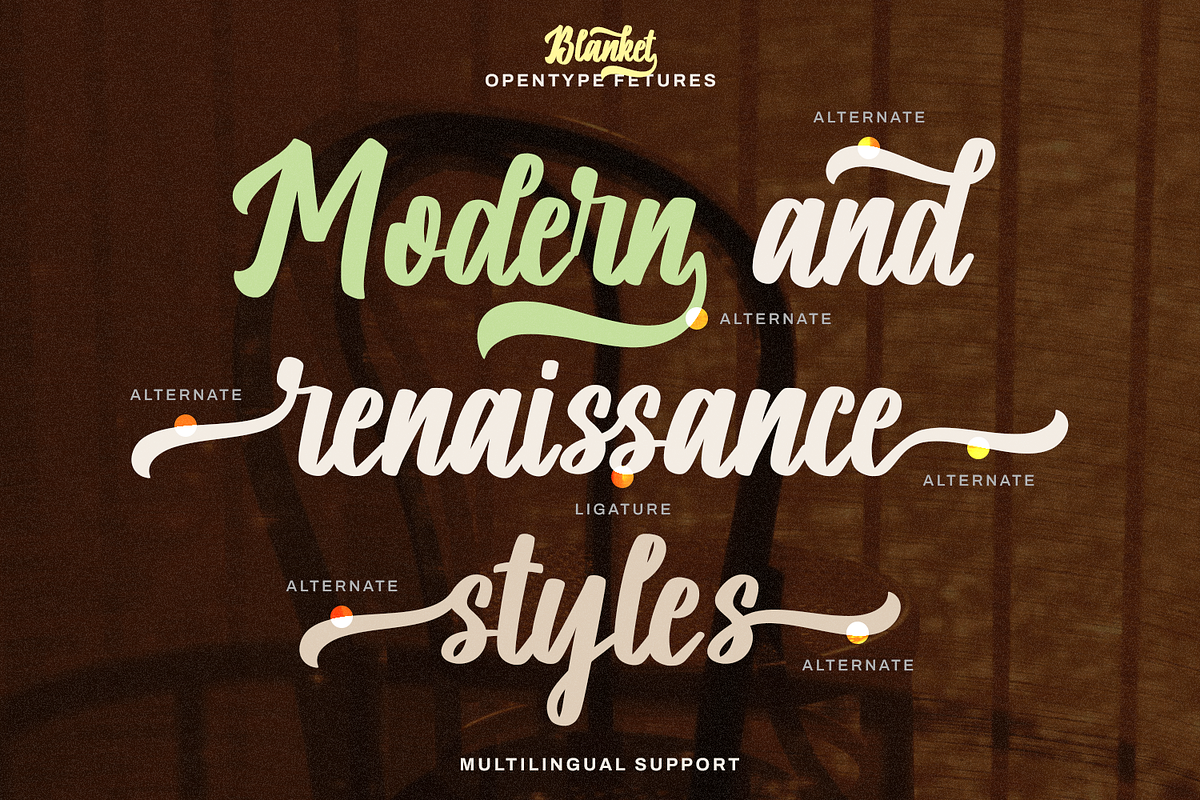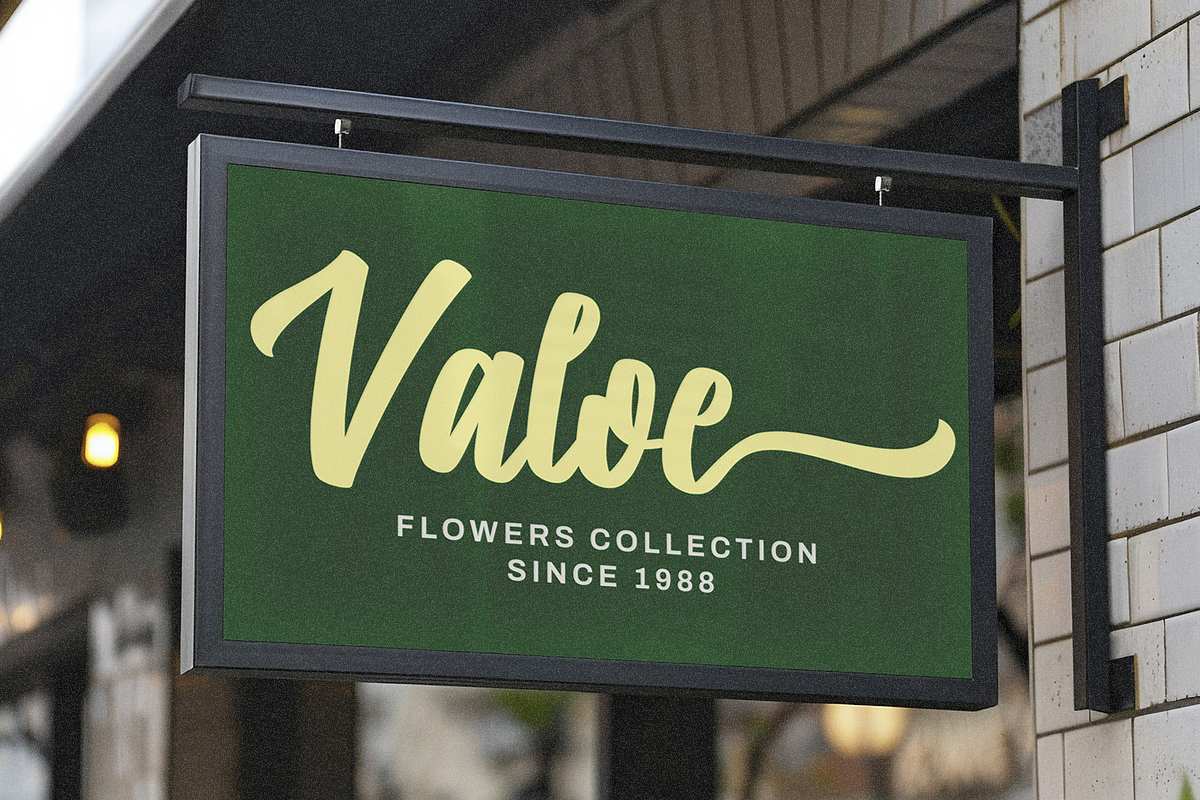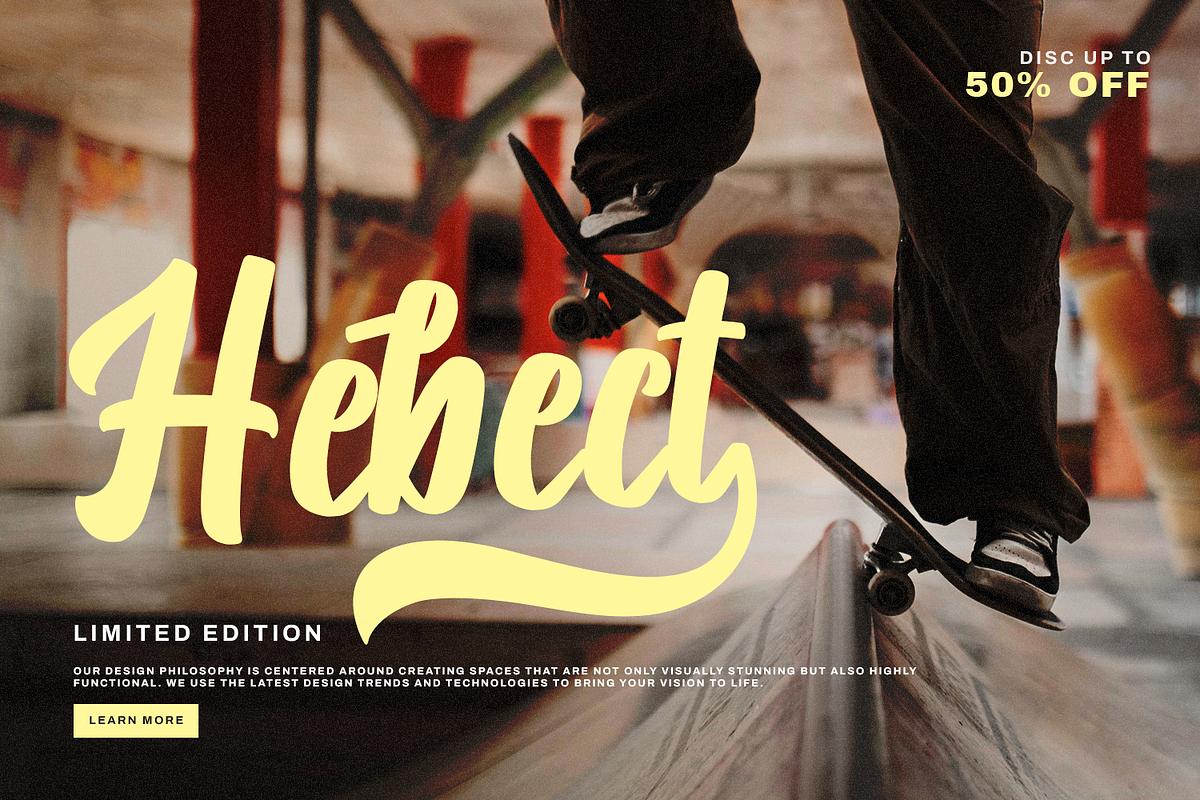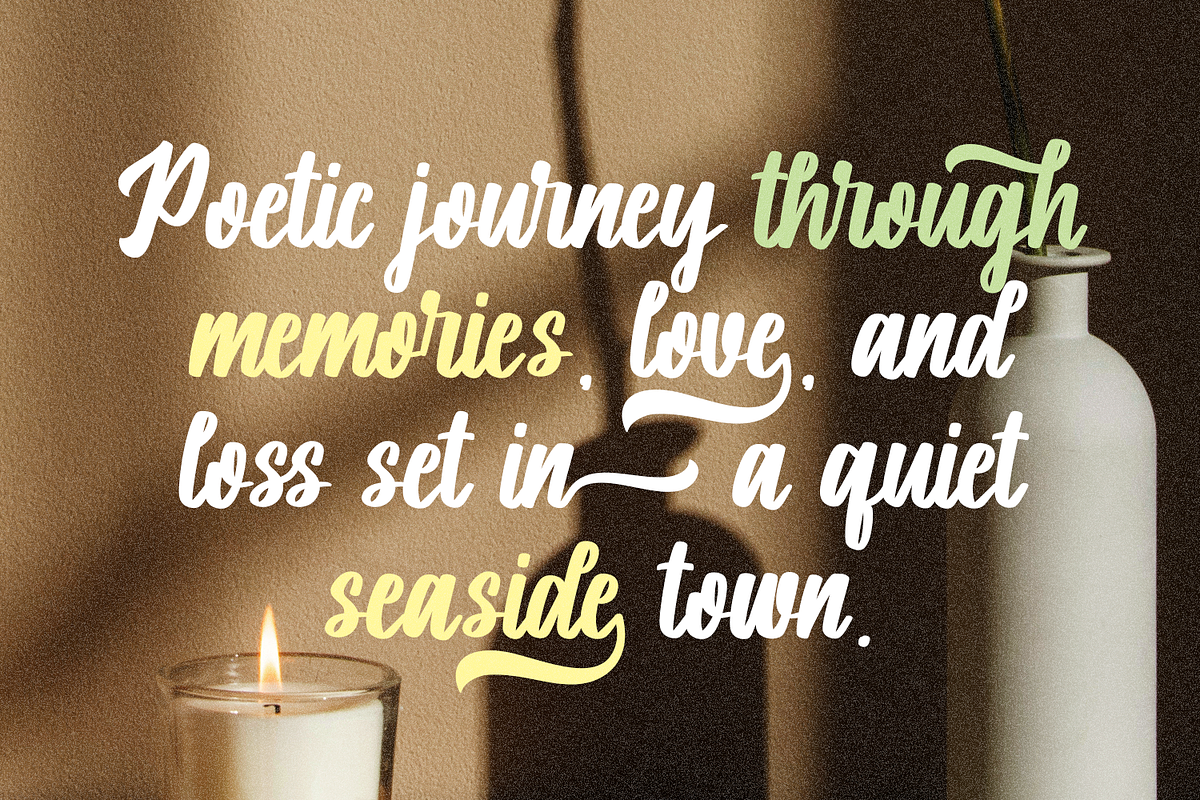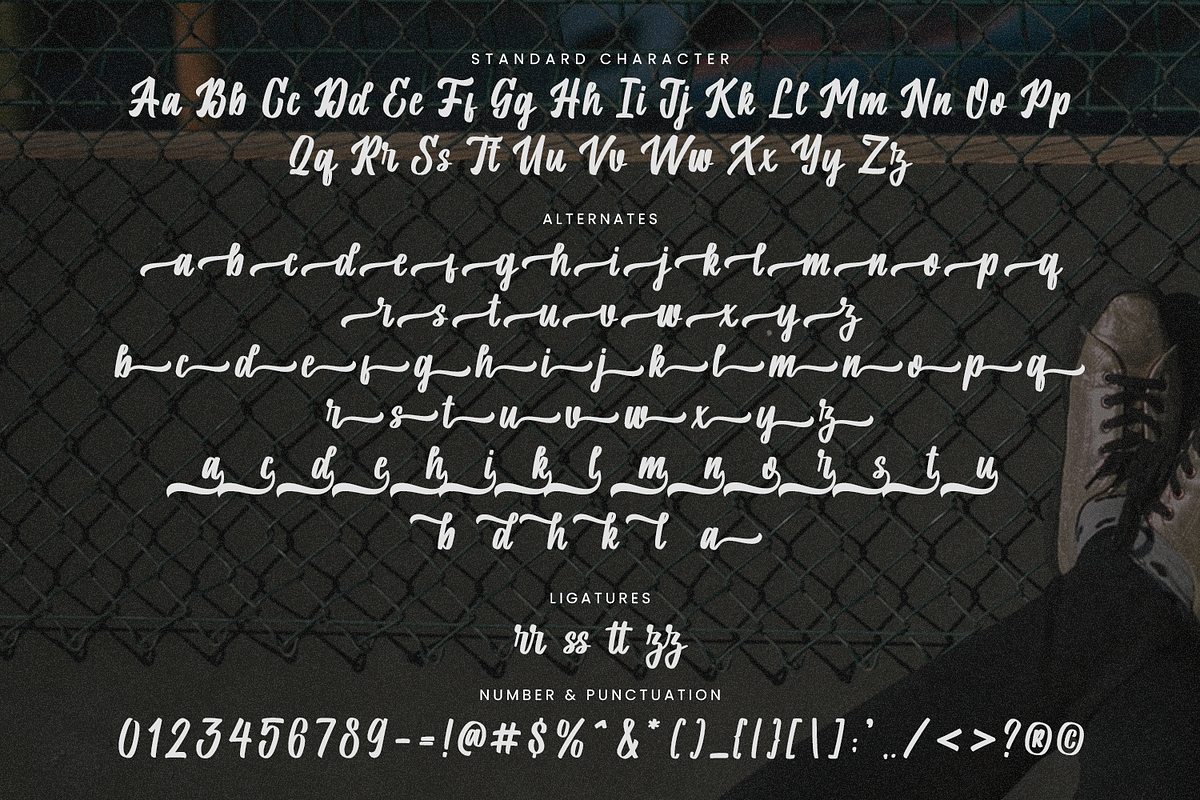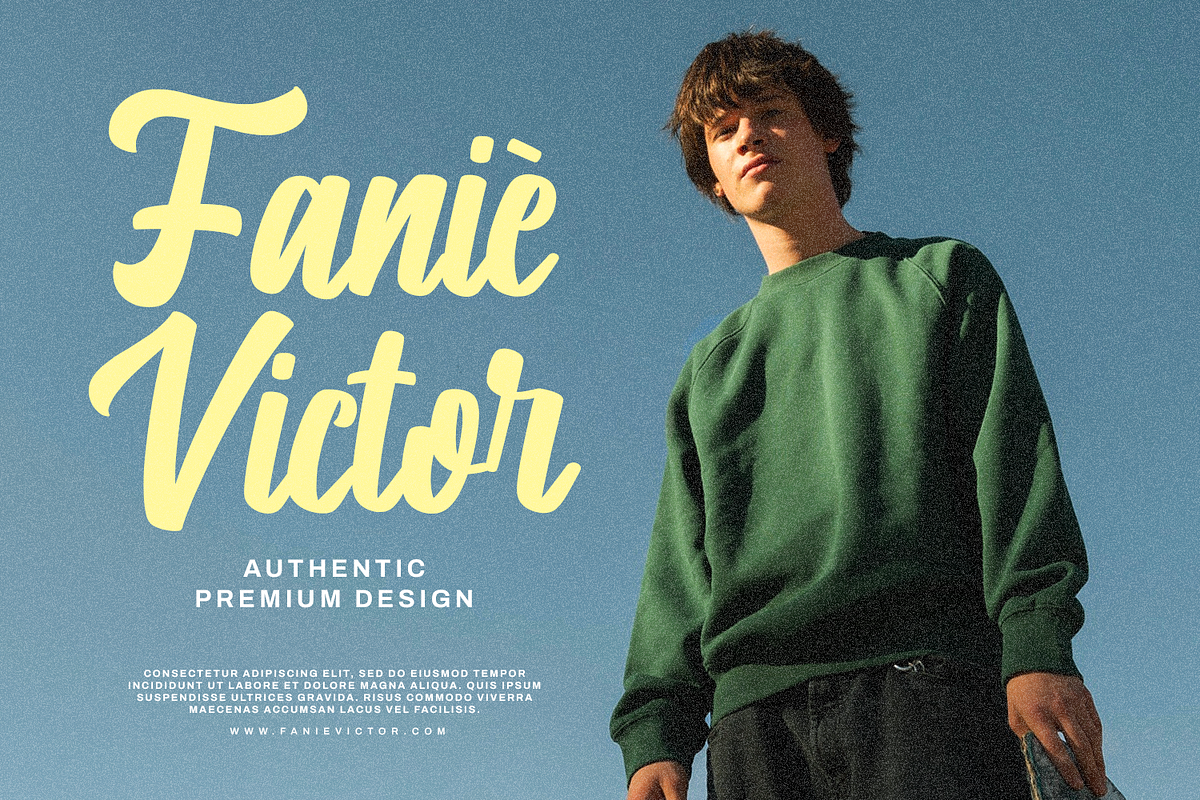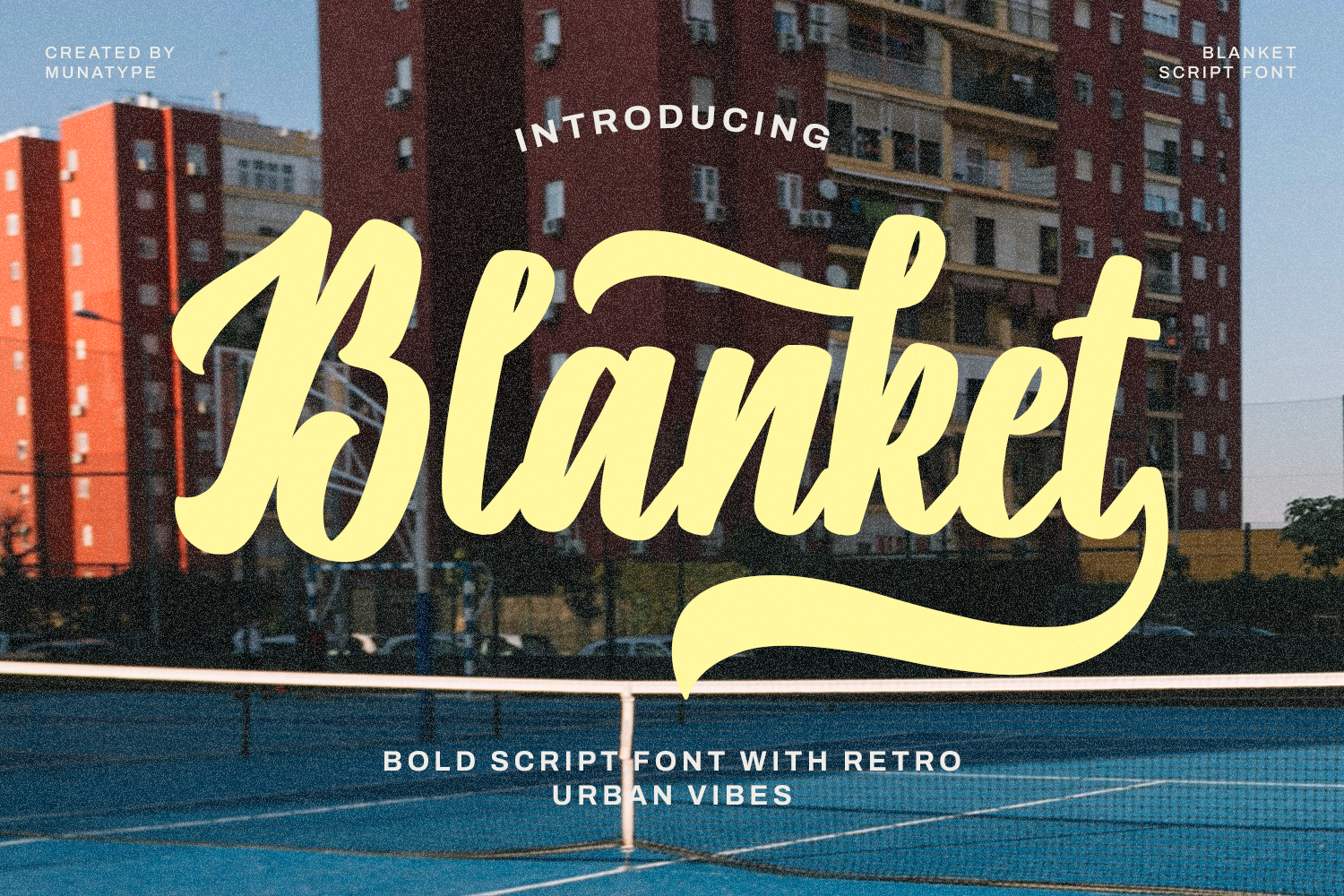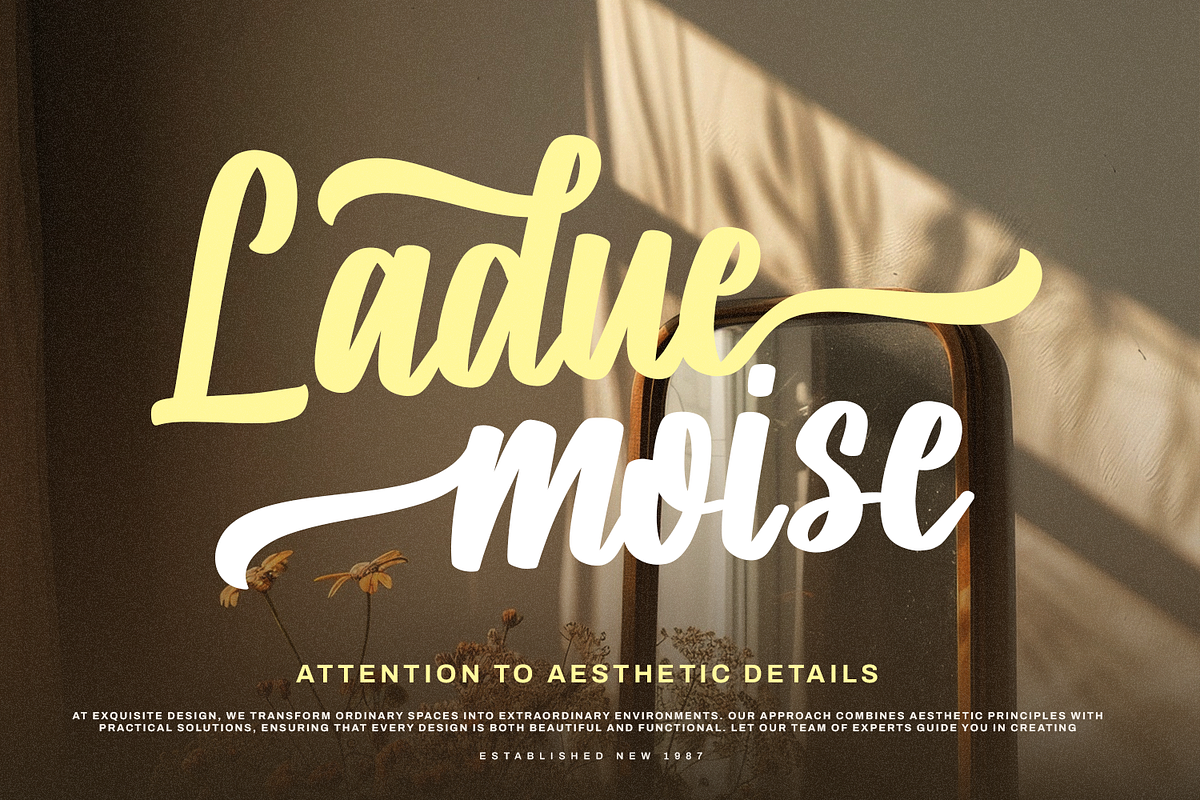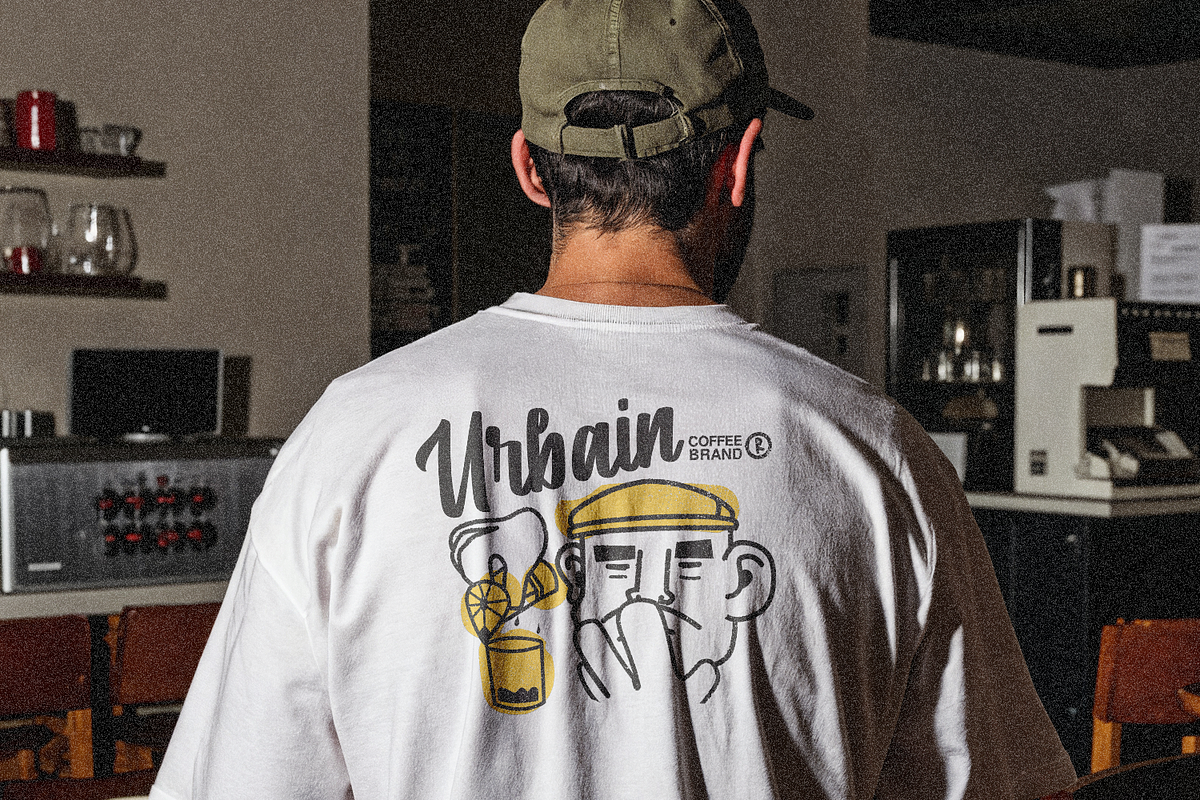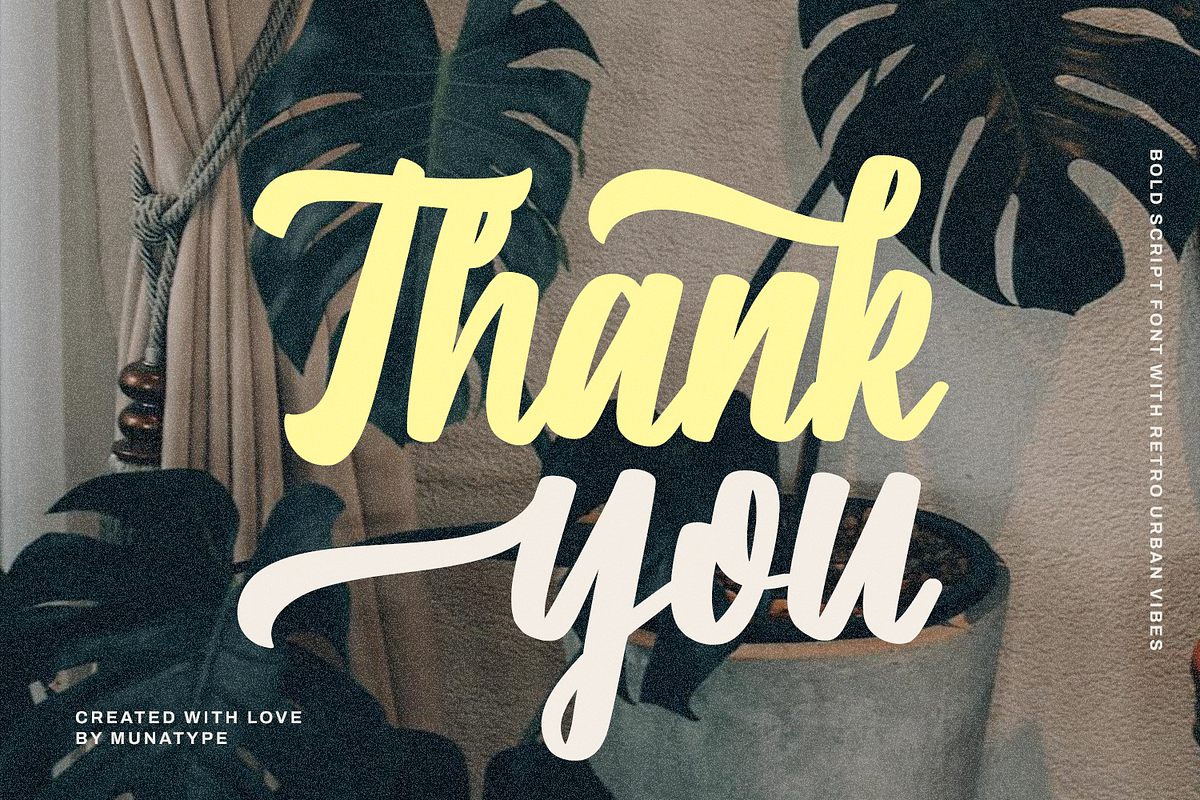
Blanket - Vintage Font
Blanket is a script handwritten font that blends classic craftsmanship with an urban edge. It captures the character of mid-century design while weaving in the raw energy of street culture, making it a perfect fit for retro, urban, vintage, and classic design themes.
Every character in Blanket is thoughtfully crafted with beginning and ending wash tails, giving each word a smooth, flowing appearance. These flourishes enhance the visual rhythm and add an elegant flair that’s ideal for logos, signage, posters, and apparel.
Packed with alternate swash characters, Blanket offers creative flexibility and stylistic variety. These swashes allow for personalized compositions, making it easy to tailor each design to stand out while maintaining a consistent aesthetic identity.
Whether used in branding, editorial layouts, or creative projects, Blanket commands attention with its expressive style and nostalgic charm. Embrace the spirit of timeless design—download Blanket now and bring your vision to life.